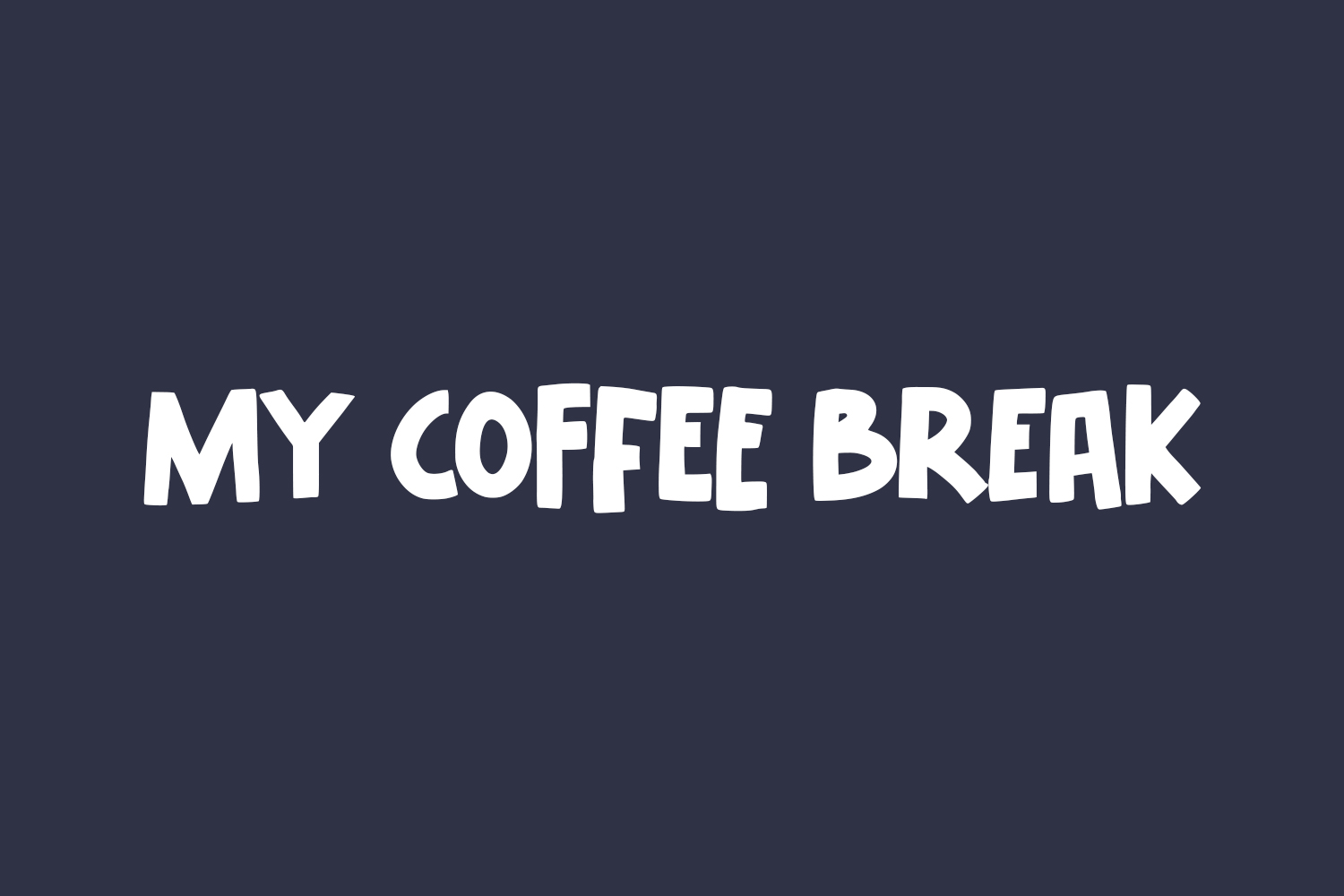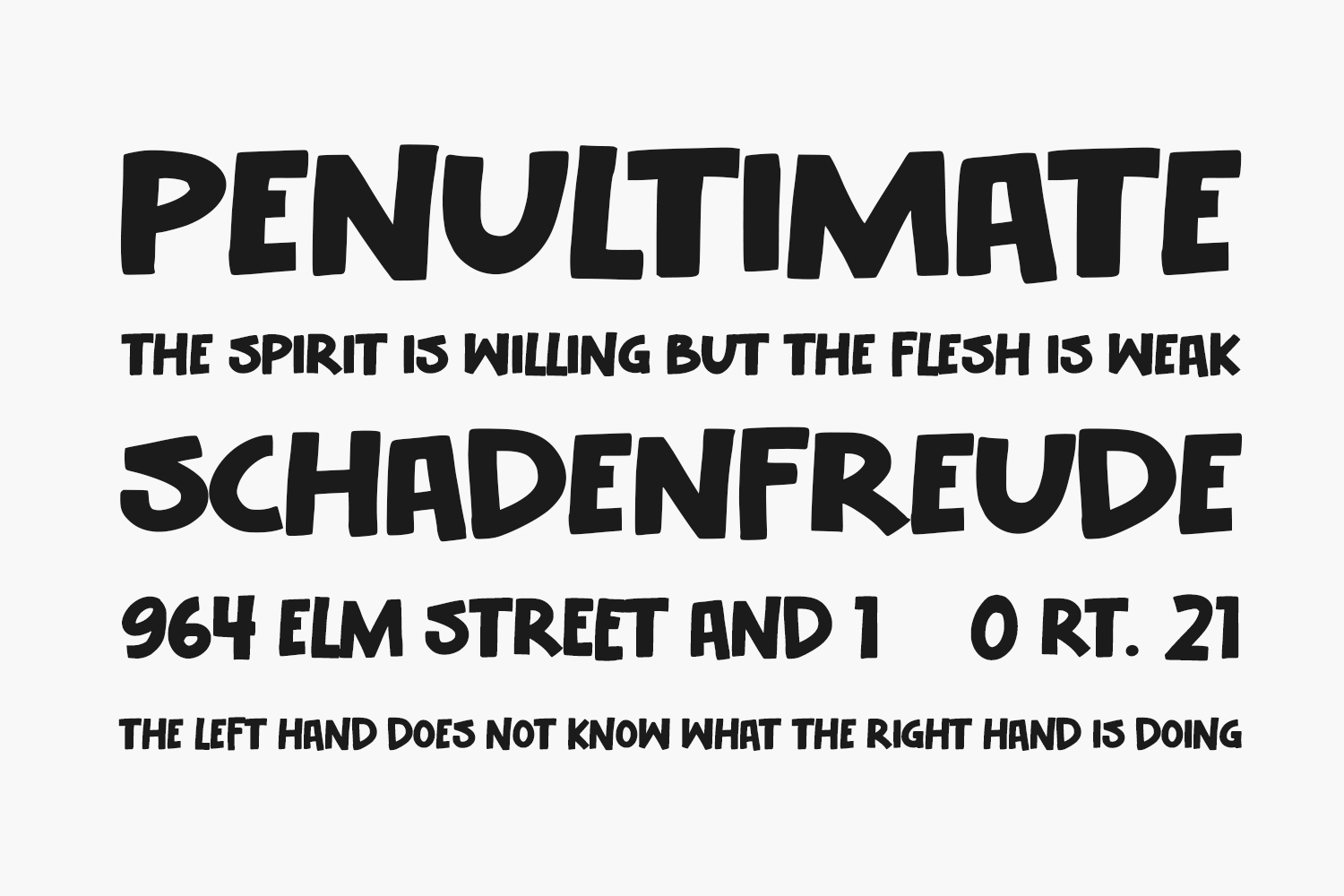
My Coffee Break Free Font is a chic and fun looking display font. My Coffee Break Free Font is a demo and free for personal use only. Please purchase the full version for commercial use.
Designed by Gassstype